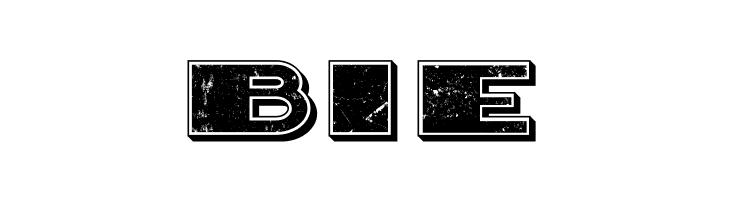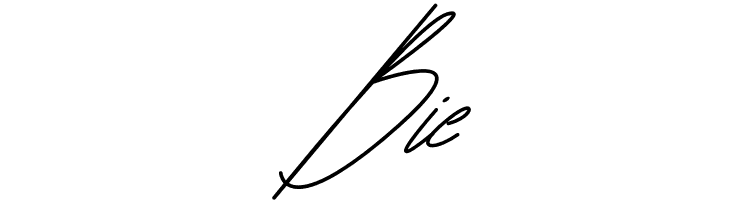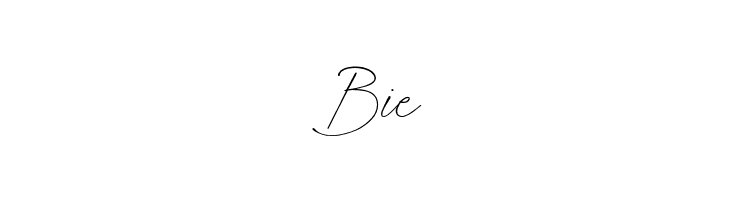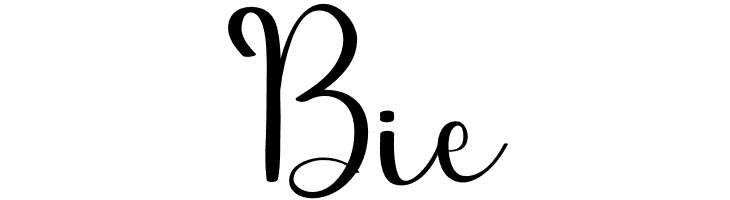
A playful, hand-drawn font with tall, narrow letters and consistent stroke width.
A modern, elegant script font with fluid, handwritten strokes.
A playful and elegant script font with a handwritten feel.
A graceful and elegant script font with flowing cursive letterforms.
A graceful script font with fluid, interconnected strokes and elegant curves.
A bold, playful handwritten font with rounded characters.
An elegant, cursive script font with flowing, handwritten style.
A bold, distressed font with a vintage, industrial style.
A modern, outline-style font with a bold, three-dimensional effect.
A bold, dynamic handwritten font with playful, flowing strokes.